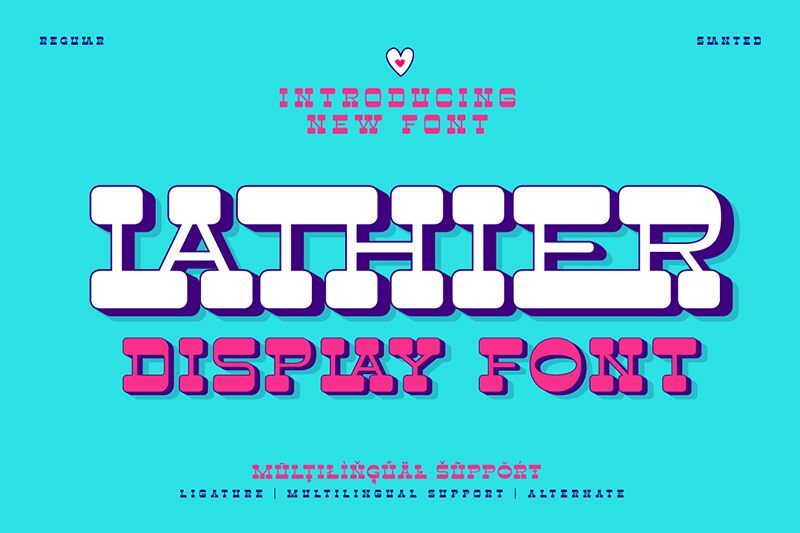
LATHIER Trial Regular
Lathier font by Twinletter is a display typeface with expanded width, bold weight, and a Western style. Its blocky geometric design is modernist-influenced even though its style is Western. Structured and industrial, this utilitarian resource can easily fond its path into your next vision.